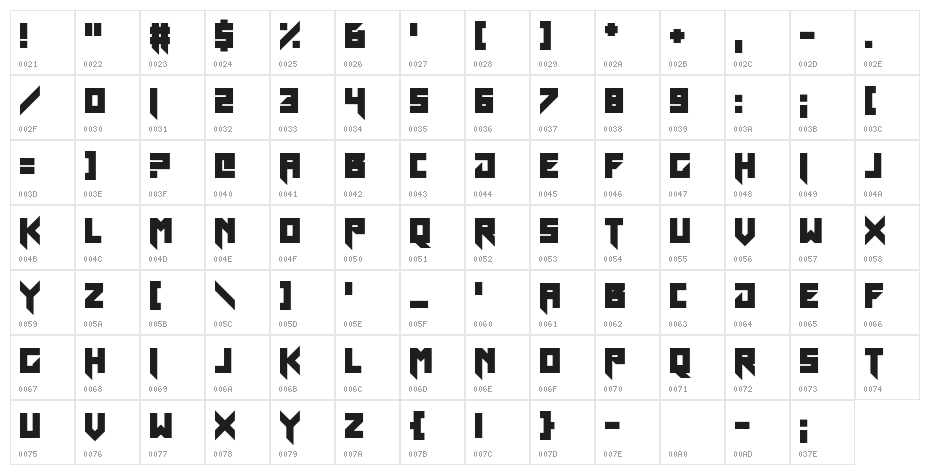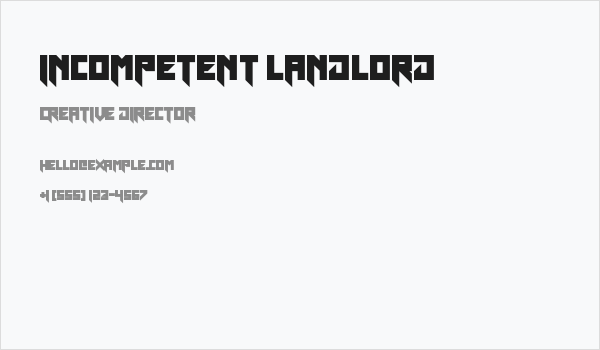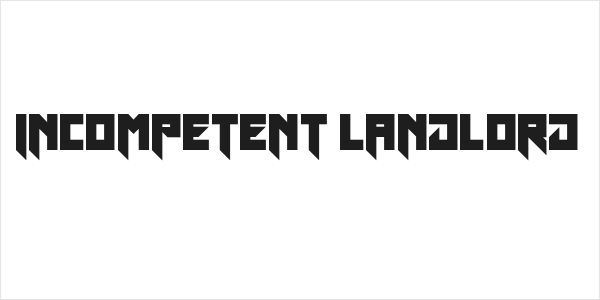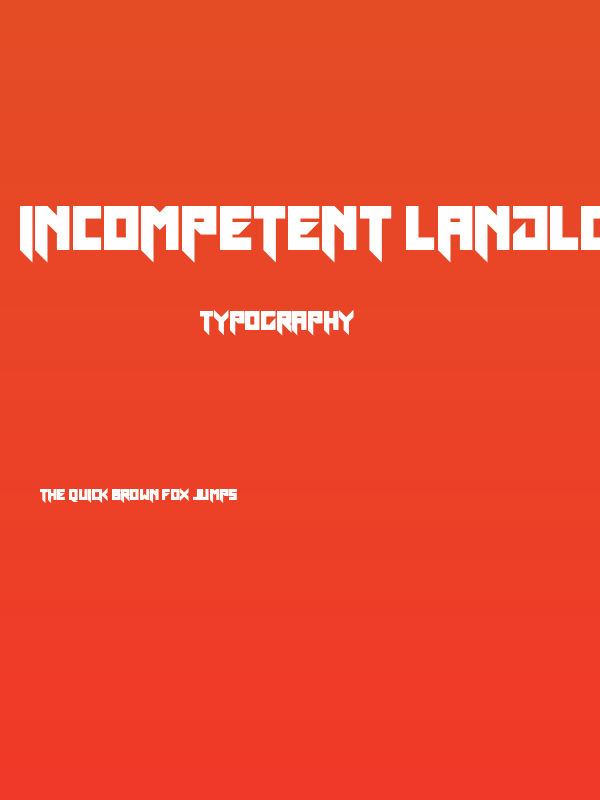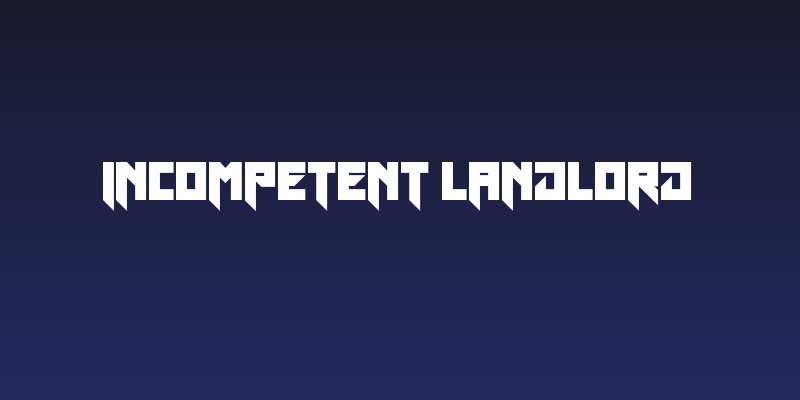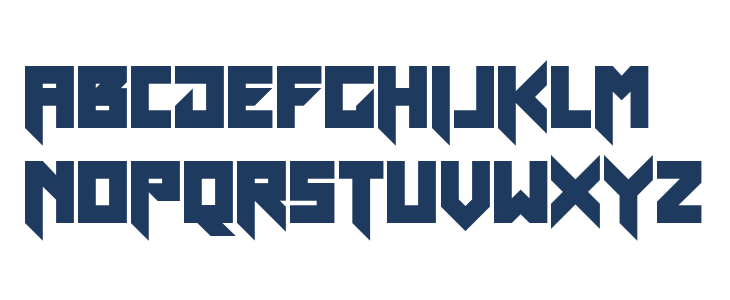
Incompetent Landlord Font
Incompetent Landlord Description
This font features a bold, geometric design with sharp angles and a blocky appearance. The characters are constructed with a consistent thickness, creating a uniform and cohesive look. The uppercase letters are particularly striking, with a futuristic and edgy style that commands attention. The numerals and special characters maintain the same boldness and angularity, ensuring a seamless integration across all text elements. This font's unique design makes it ideal for projects that require a strong visual impact.
| Proposed Projects | Ideal for branding, posters, video game graphics, and any project needing a strong, modern aesthetic. |